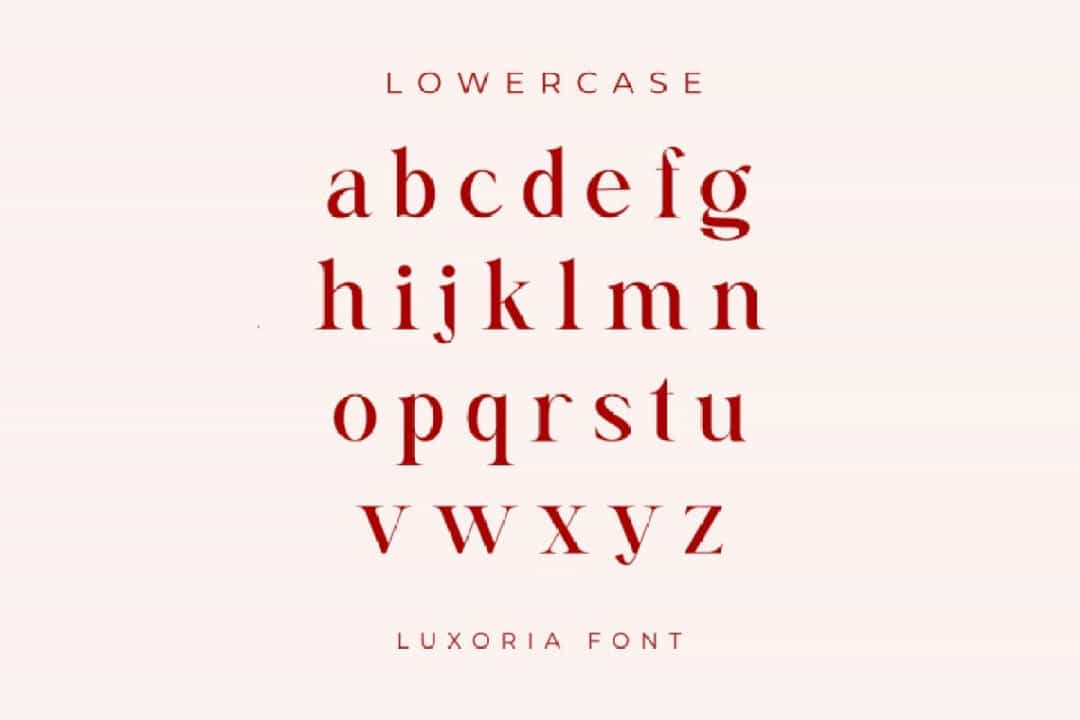
Luxoria is an eye-catching serif typeface. It makes an ideal display font for logos, branding projects and wedding designs as well as social media posts and packaging of products, advertising labels, product designs photographs invitations stationery etc made to a high quality level of comprehension.